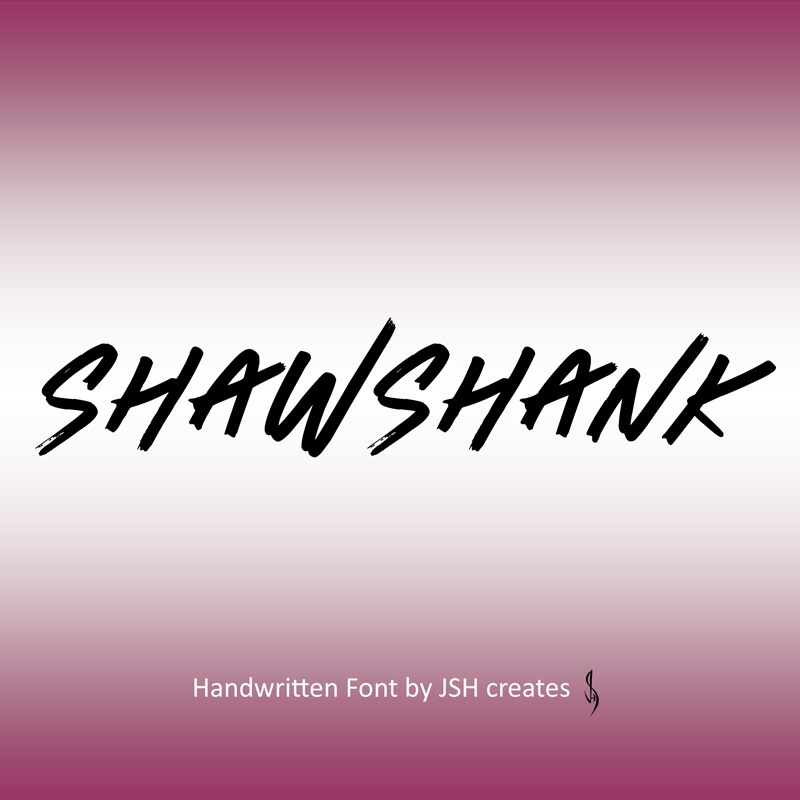
Shawshank font, crafted by JSH creates, embodies a captivating brush style that exudes both energy and creativity. Its dynamic strokes feature a bold presence, delivering an expressive flair that draws attention and inspires emotion. The sweeping curves and playful lines contribute to its artistic charm, making it a delightful choice for various applications.
This font shines in branding projects, promotional materials, and social media graphics where a personal touch is desired. Its unique character effortlessly blends sophistication with informality, allowing it to resonate across playful designs as well as more serious contexts. Shawshank's striking attributes ensure it will stand out in any design scenario, leaving a lasting impression on viewers.